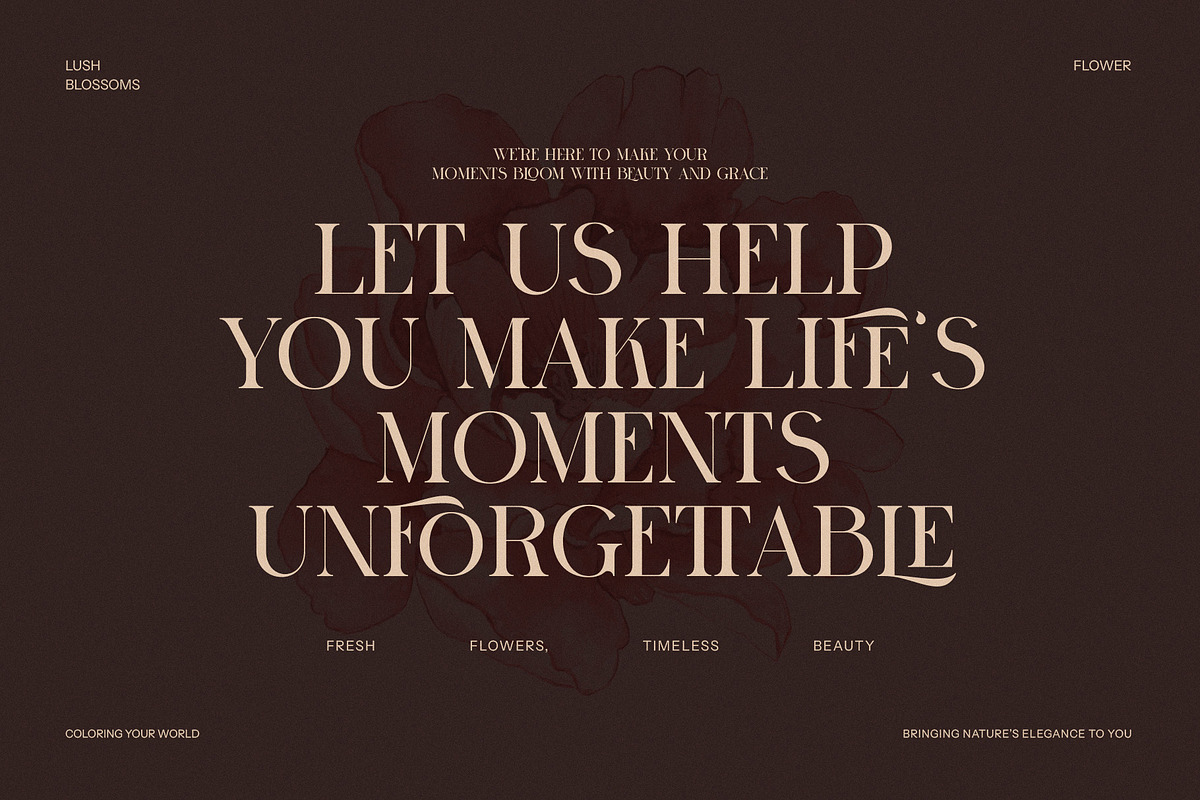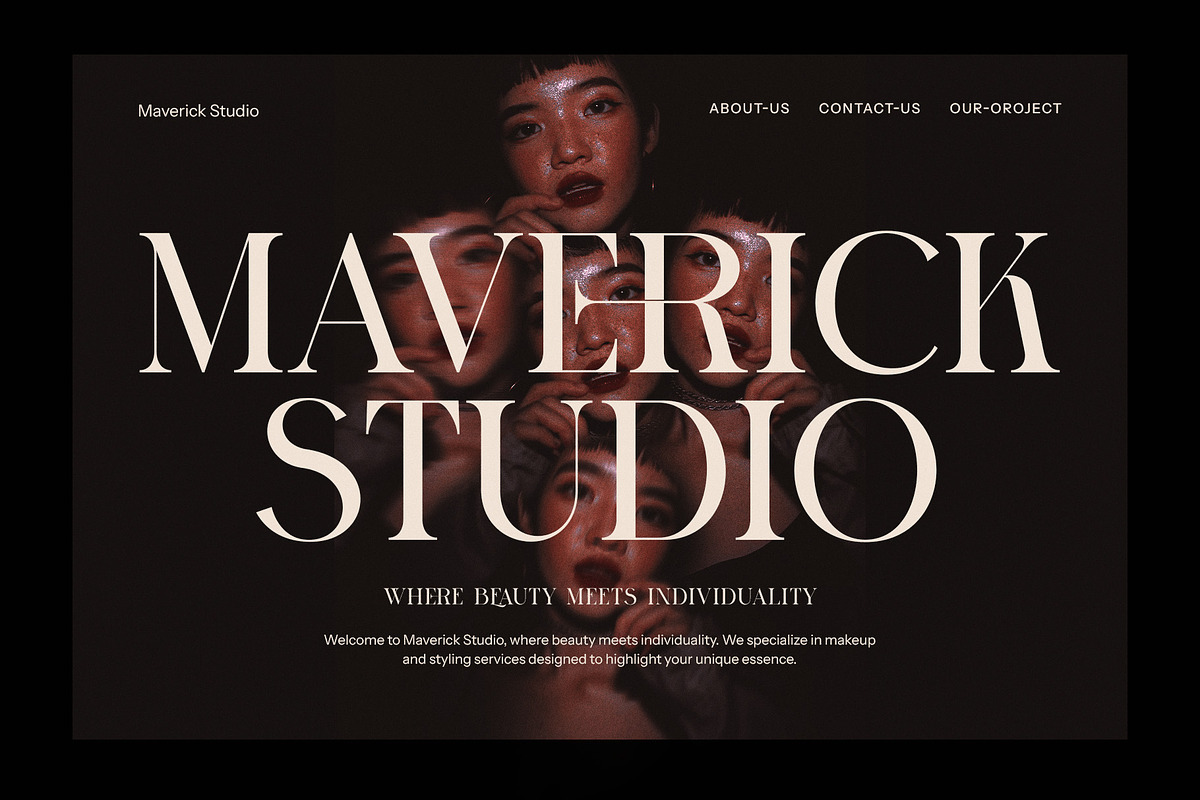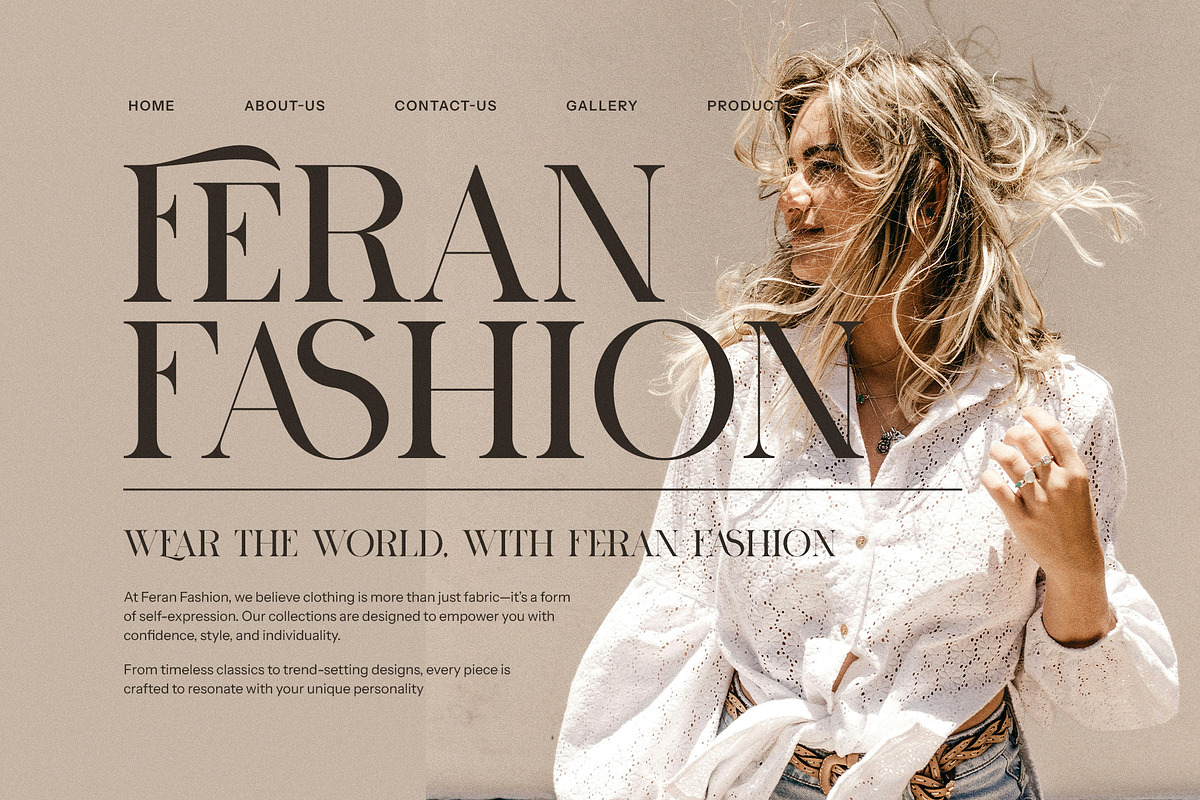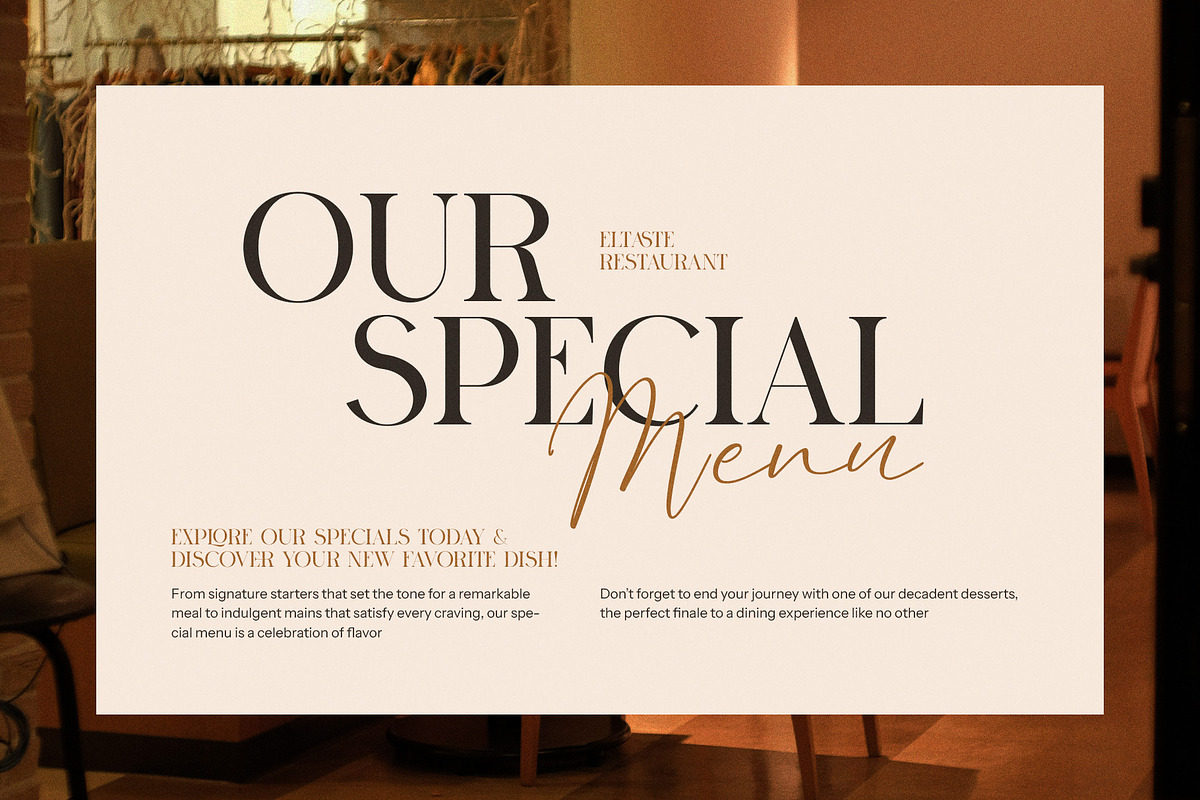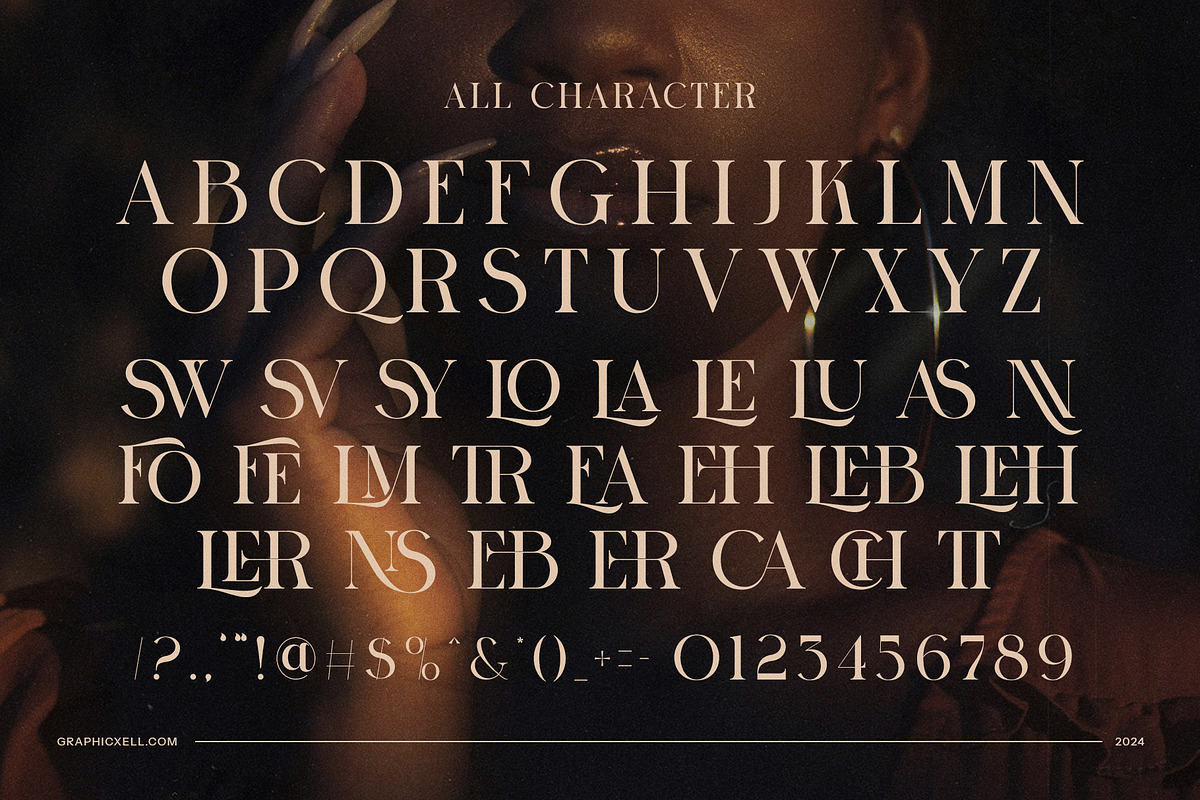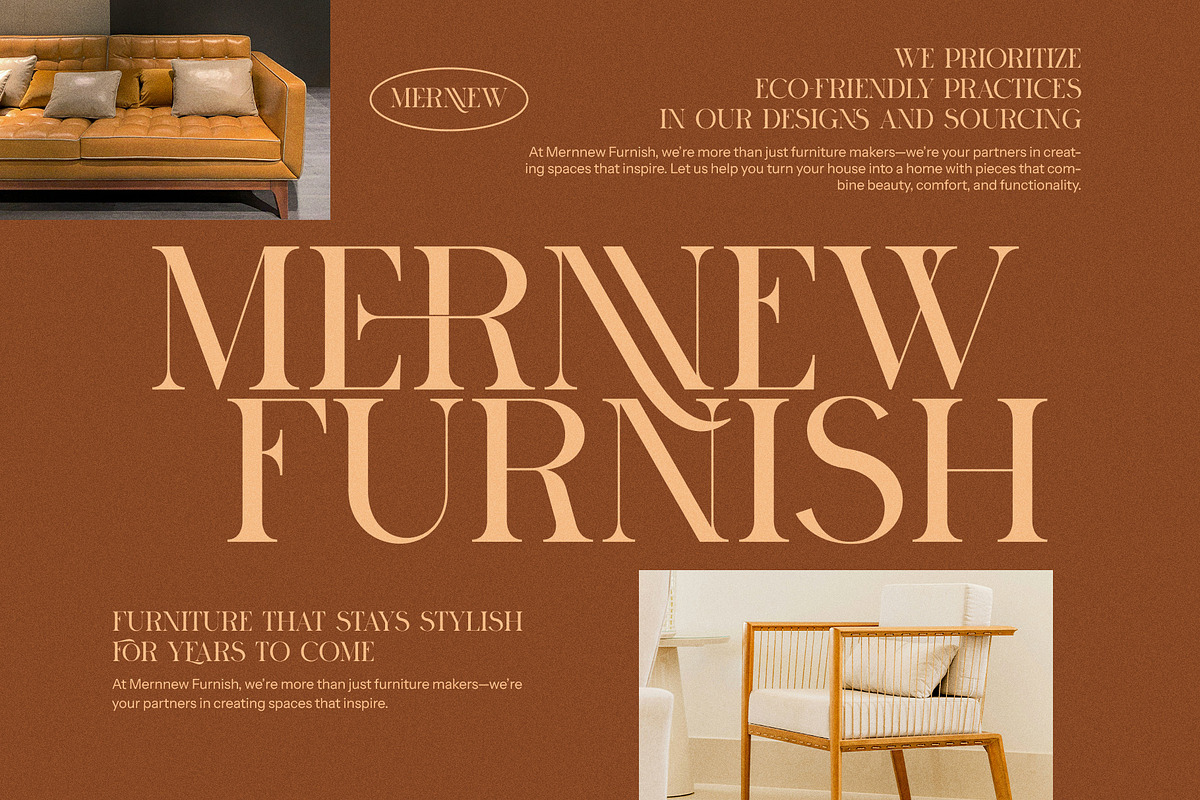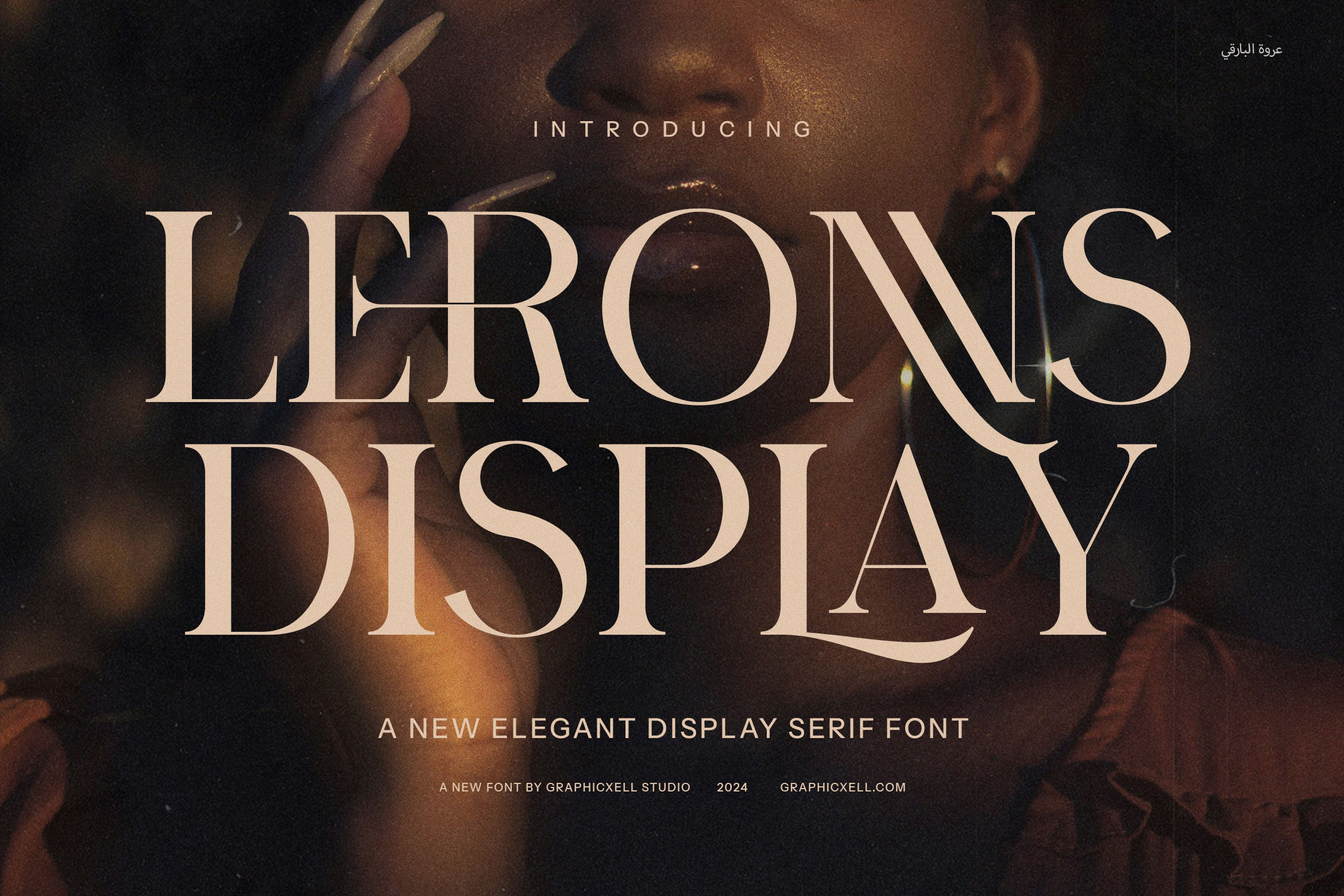
Leronns Elegant Serif Font
Leronns Elegant Serif Font is a striking blend of contemporary sophistication and timeless charm, designed to elevate any creative project. With its refined serifs and graceful curves, this font embodies a perfect balance between modernity and classic elegance, making it an ideal choice for those who seek to make a bold yet sophisticated statement.
The distinguishing feature of Leronns lies in its meticulously crafted ligatures and alternates, which offer a versatile range of stylistic options. Whether you’re creating a chic logo, a sleek website, or an eye-catching advertisement, these elegant touches allow for personalized and distinctive designs. The font’s unique letterforms and subtle embellishments contribute to an aesthetic that is both refined and dynamic.
Leronns is particularly well-suited for high-end branding and editorial use. Its clean lines and harmonious proportions ensure readability, while its distinctive style adds a layer of exclusivity. This makes it perfect for fashion boutiques, luxury products, gourmet food brands, and upscale magazines. The font’s versatility also extends to digital platforms, where it enhances the visual appeal of websites and online campaigns, ensuring that your brand stands out in a crowded marketplace.
Designed with a modern sensibility, Leronns Elegant Serif Font is not just a typeface—it’s a statement of style. Its graceful presence and adaptability make it a valuable asset for designers looking to infuse their projects with an air of elegance and sophistication. Whether used in bold headlines or delicate body text, Leronns delivers a polished and professional finish that resonates with discerning audiences.